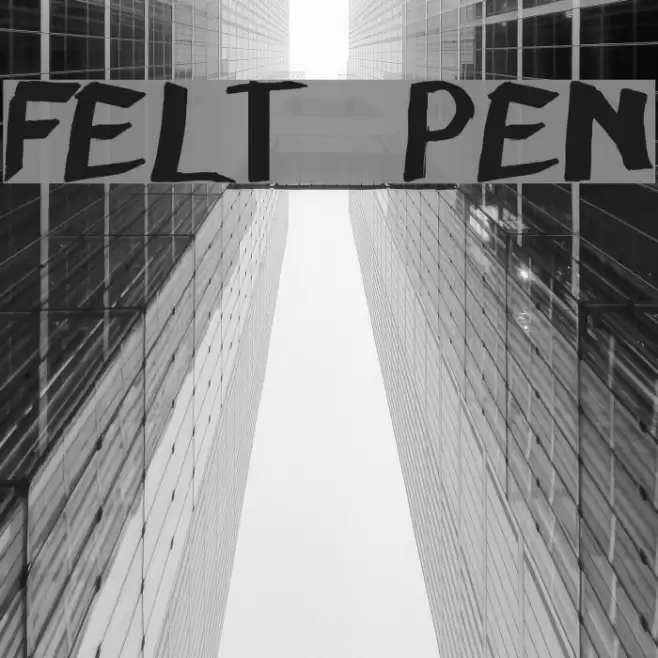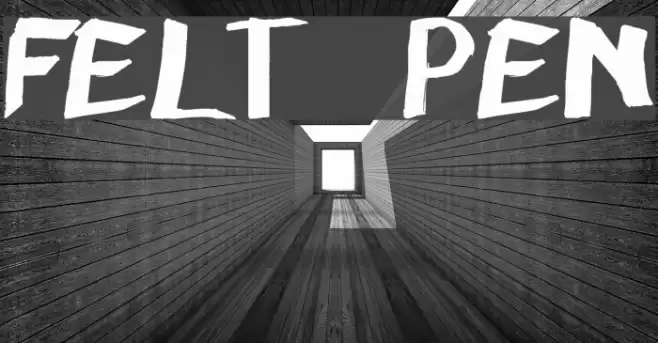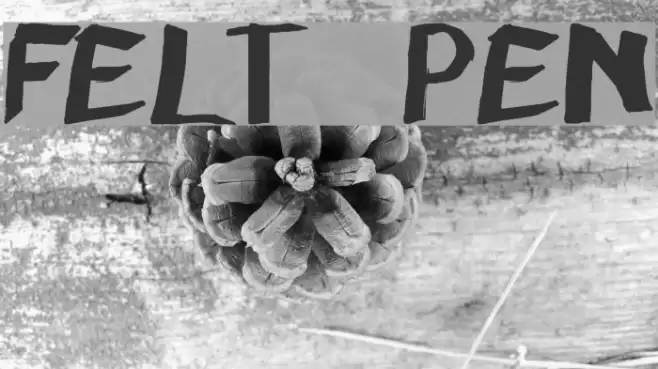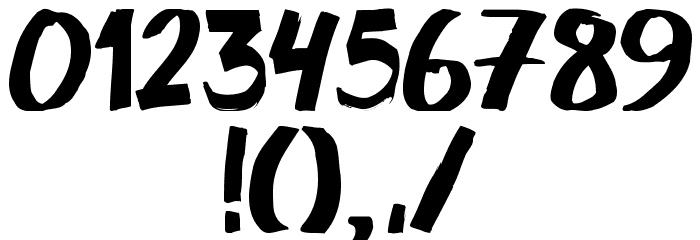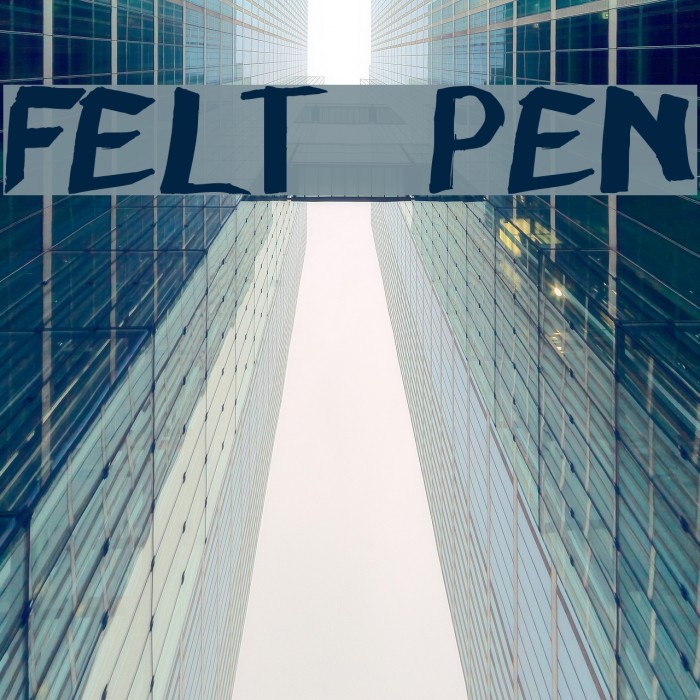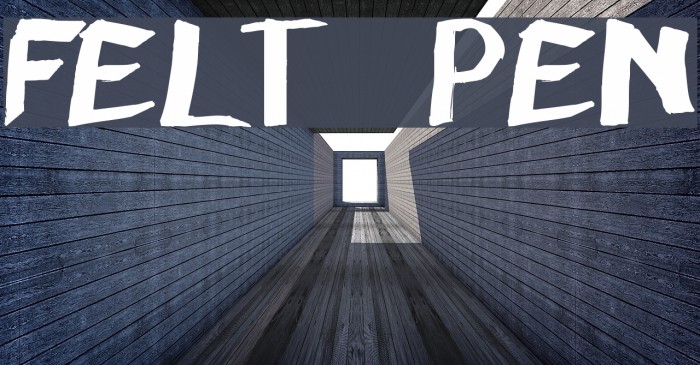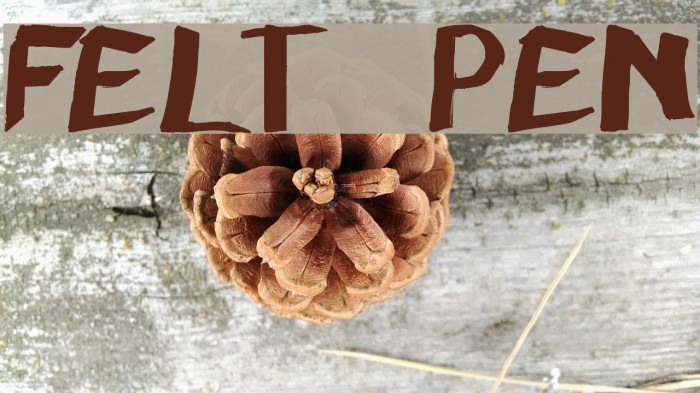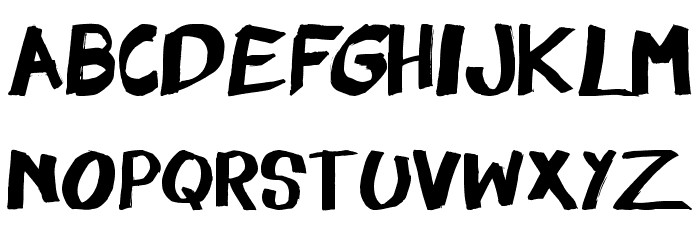
felt pen Font
felt pen Description
This font exudes a bold and expressive style, reminiscent of hand-drawn lettering with a felt pen. The characters are thick and slightly irregular, giving a dynamic and energetic feel. The uppercase letters are prominent and assertive, while the lowercase letters maintain a consistent flow. Numbers and special characters follow the same bold and playful aesthetic, making them stand out. The overall design is informal yet impactful, suitable for projects that require a personal touch or a creative flair.
A bold, hand-drawn style font with an expressive and dynamic feel.
- Proposed Projects: Ideal for posters, creative branding, children's books, and artistic projects.
- Category: Handwritten